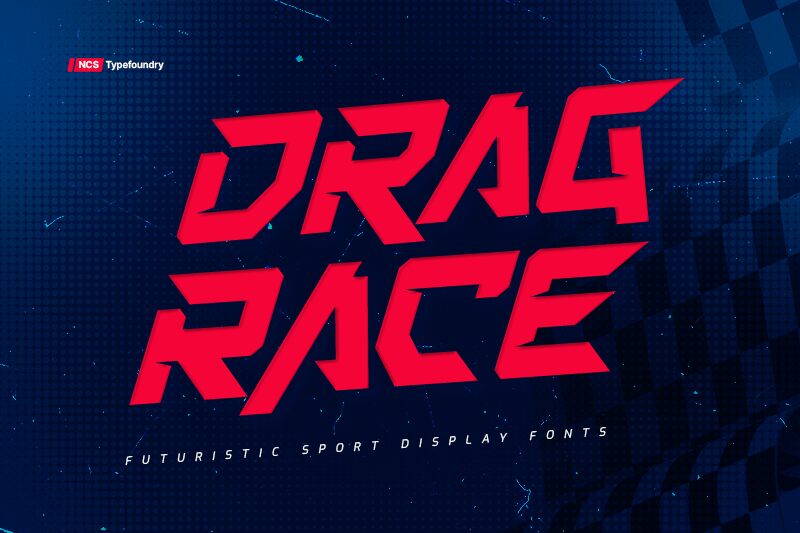
Dragrace, designed by Namara Creative, is a display font that captures the essence of speed and technology with its futuristic flair. Its expanded letters exude confidence and strength, embodying a modern style that commands attention. The distinctive angles and powerful form make it an ideal choice for headlines where impact is paramount.
This font's bold presence makes it perfect for film or game covers that need to convey excitement and energy. Its assertive lines are also well-suited for automotive branding, where a sense of motion and innovation is essential. Dragrace's unique characteristics ensure that logos and labels designed with this font will leave a lasting impression, driving forward any project with its dynamic edge.